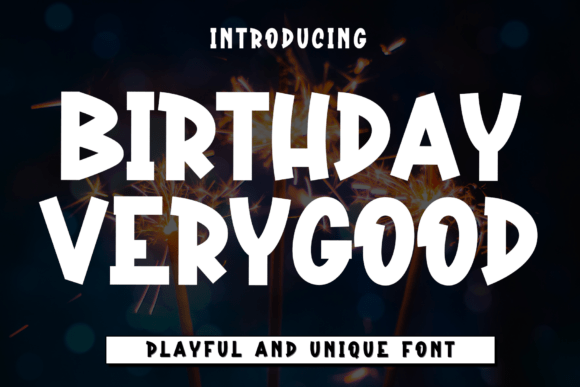
The Perfect Birthday Bash: Unveiling the Birthday Verygood Font
Have you ever found yourself stuck in front of your computer, scrolling through font libraries, searching for the perfect match for your latest design project? It’s a feeling we’ve all been there, right? The one where you’re craving a font that’s both stylish and easy to read, yet still conveys the relaxed, laid-back vibe of your brand or campaign.
Enter the Birthday Verygood Font, a delightful display font that’s specifically designed to bring personality to your projects without overwhelming the message. Its clean lines, friendly letterforms, and balanced structure make it perfect for headlines, posters, packaging, and branding that demands both modernity and approachability.
Birthday Verygood Font Key Features
- Unique Characteristics: This font features a unique, celebratory feel with bold and playful strokes, perfect for birthday-themed designs.
Birthday Verygood Font Review
I recently had the chance to work with the Birthday Verygood Font, and I must say it’s a mixed bag. Here are my thoughts:
- Playful and celebratory vibe: The font’s bold and colorful aesthetic is perfect for birthday invitations, party decorations, and other festive designs.
- Highly legible: The font is easy to read, even at small sizes, making it suitable for body text and captions.
- Customizable: The font offers a range of customization options, including color, size, and font weight, giving designers flexibility and control.
- Limited versatility: While the font is great for birthday-themed designs, it may not be the best choice for more formal or professional projects.
- Overuse of color: The font’s bright colors can be overwhelming if used extensively, so it’s essential to balance them with neutral elements.
- Not suitable for complex text: The font’s playful nature makes it less suitable for complex or technical text, such as instructions or academic writing.
Overall, I think the Birthday Verygood Font is a fun and engaging choice for birthday-themed designs. While it may have some limitations, its versatility and customization options make it a great addition to any designer’s toolkit.
For the best results, use Birthday Verygood Font in bold and large sizes for maximum impact.
- Birthday invitations and cards
- Party decorations and signage
- Photography captions and overlays
Alternatives to “Birthday Verygood Font” for Designers
Great Vibes Font is a modern, elegant script font that is perfect for adding a touch of sophistication to your designs. It’s ideal for use in wedding invitations, party decorations, and other celebratory materials. Compared to Birthday Verygood Font, Great Vibes Font has a more refined and luxurious feel, making it suitable for high-end events and occasions.
Pacifico Font is a beautiful, handwritten font that exudes a sense of warmth and friendliness. It’s perfect for use in casual designs, such as social media graphics, party invitations, and event signage. Compared to Birthday Verygood Font, Pacifico Font has a more relaxed and approachable feel, making it ideal for laid-back and informal events.
Carolyna Pro Font is a luxurious, modern script font that is perfect for adding a touch of glamour to your designs. It’s ideal for use in high-end event materials, such as wedding invitations, luxury party decorations, and upscale event signage. Compared to Birthday Verygood Font, Carolyna Pro Font has a more sophisticated and elegant feel, making it suitable for high-end events and occasions.